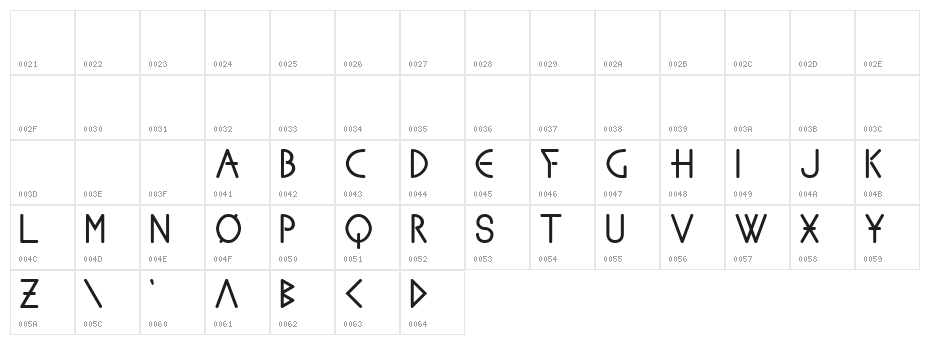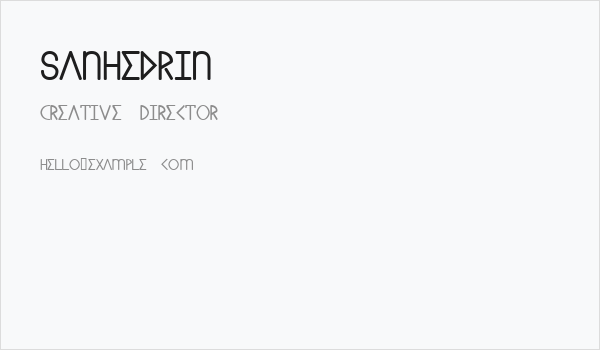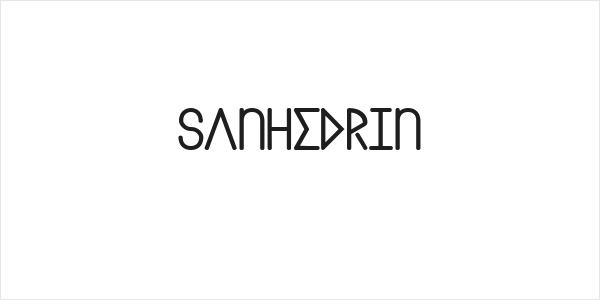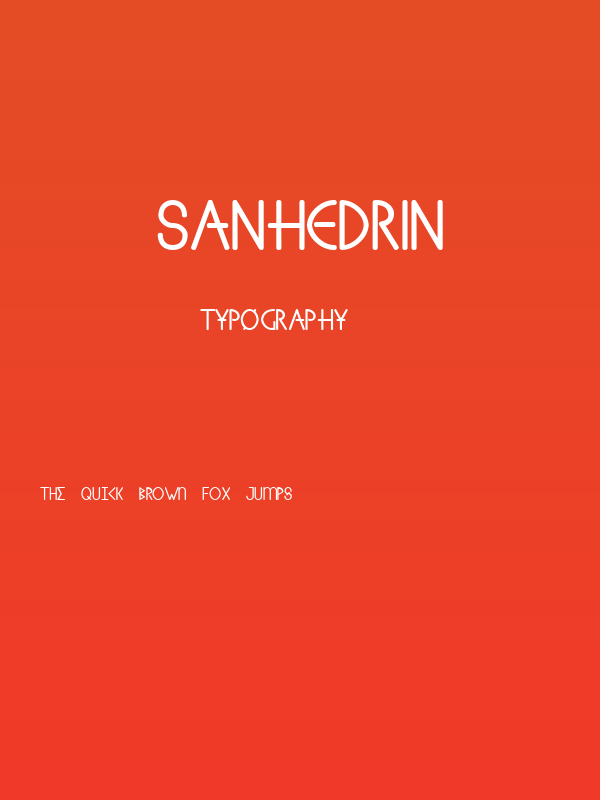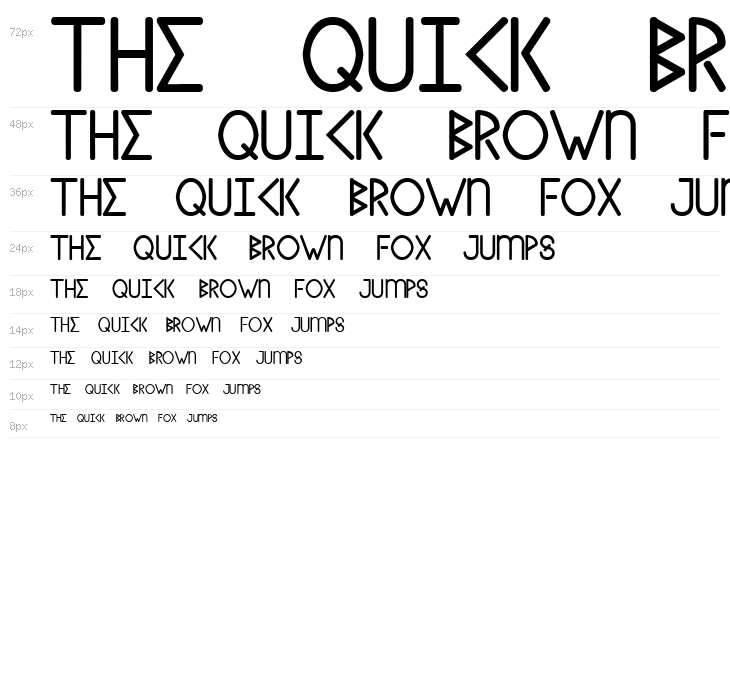
Sanhedrin Font
Sanhedrin Description
This font features a unique and modern design with geometric influences. The characters are crafted with clean lines and sharp angles, giving it a futuristic and stylish appearance. The uppercase letters are particularly distinctive, with some characters incorporating unexpected shapes and forms that add to its visual interest. The font maintains a consistent stroke width throughout, contributing to a balanced and cohesive look. Its design is both bold and minimalistic, making it suitable for a variety of creative applications. The overall aesthetic is contemporary, with a hint of avant-garde flair.
Proposed ProjectsIdeal for branding, logos, posters, and editorial design where a modern and distinctive look is desired.